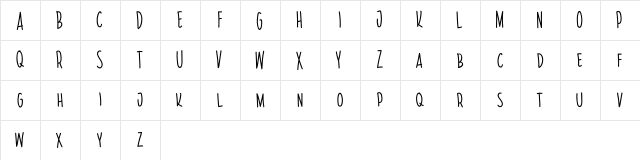
Complete GOLDSTEP FREE Regular glyph index. Displaying only characters natively supported by GOLDSTEP FREE Regular font.
GOLDSTEP FREE is a composed and adaptable typeface that performs quietly and consistently across a wide range of design contexts.